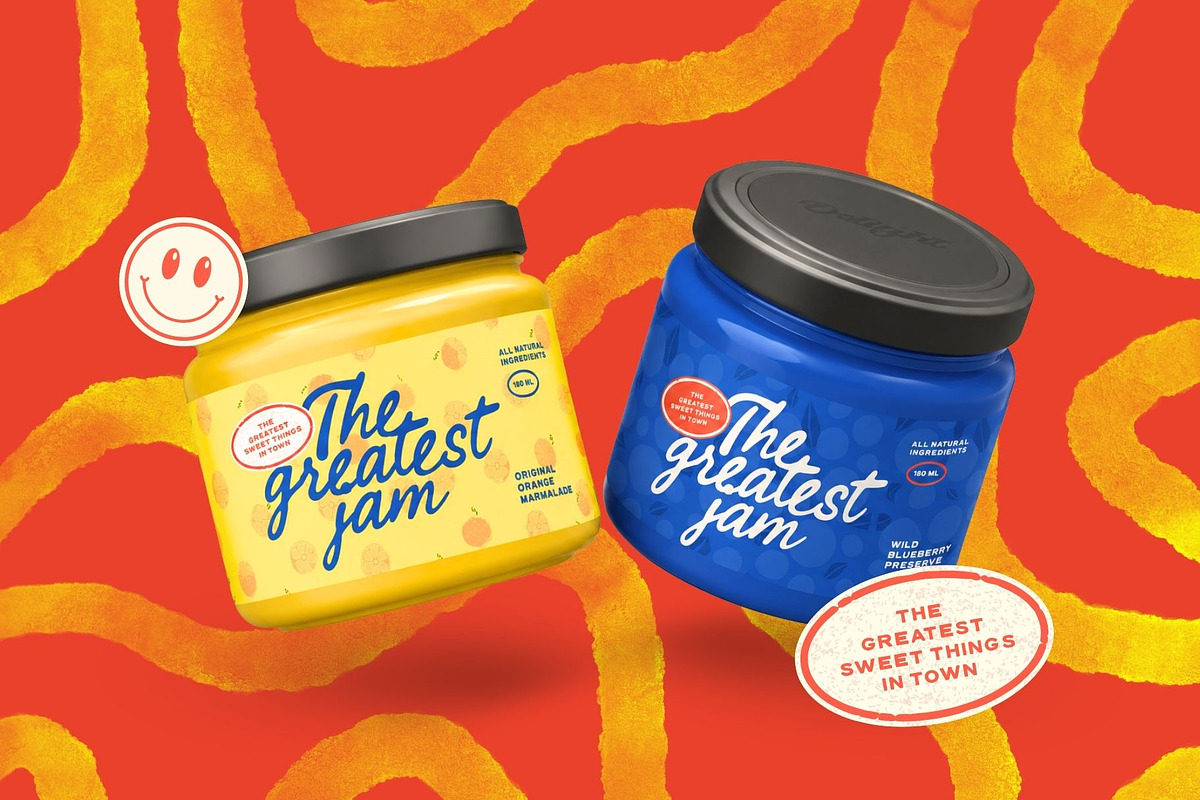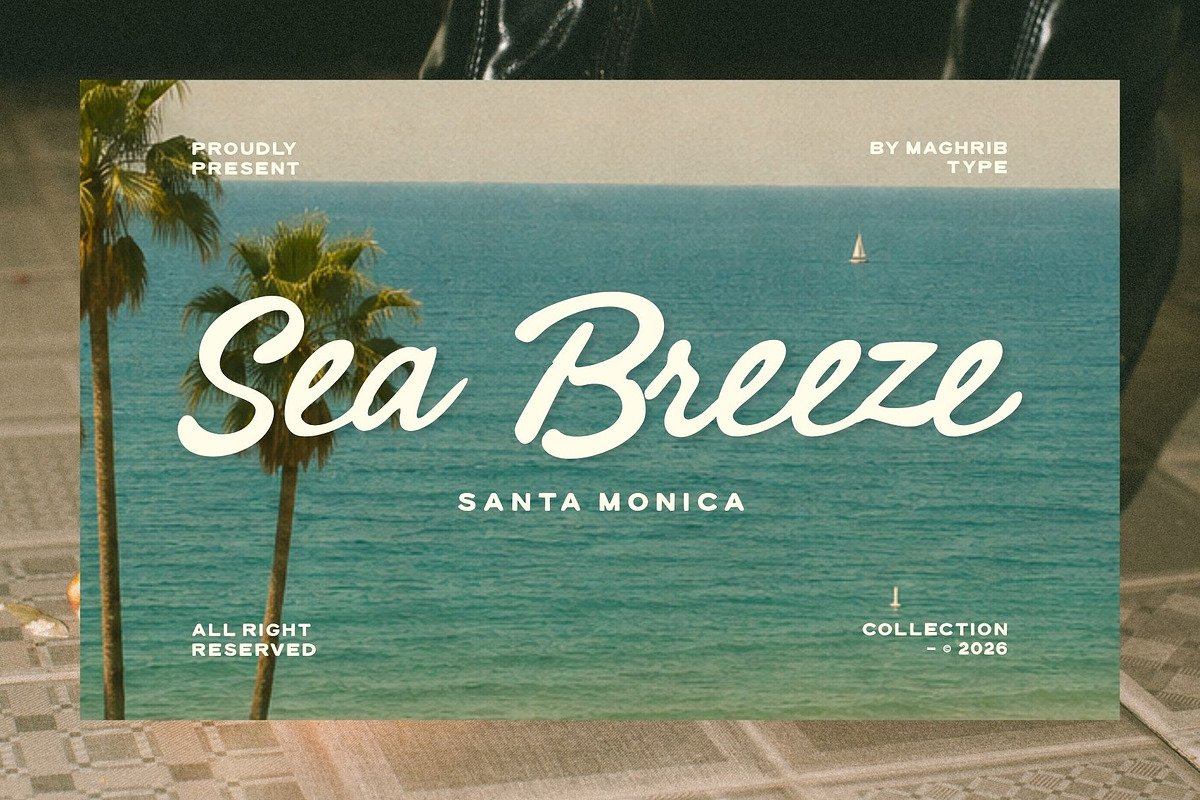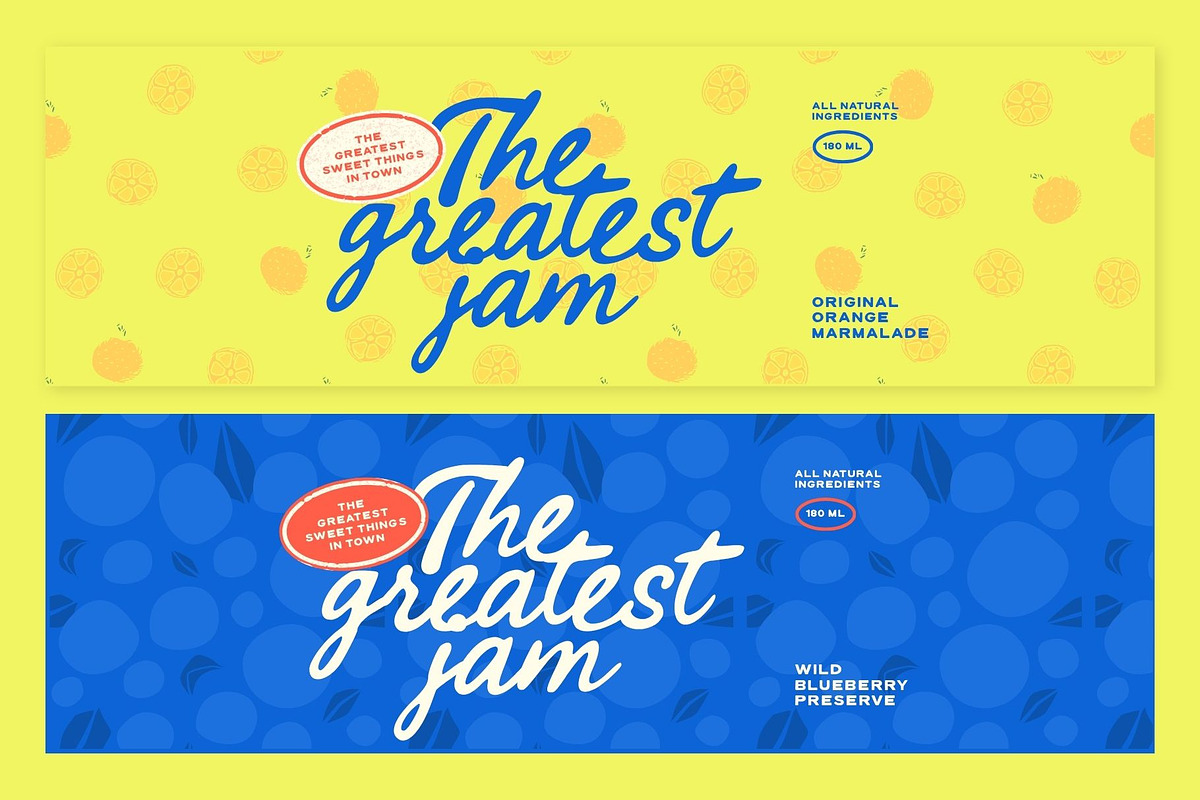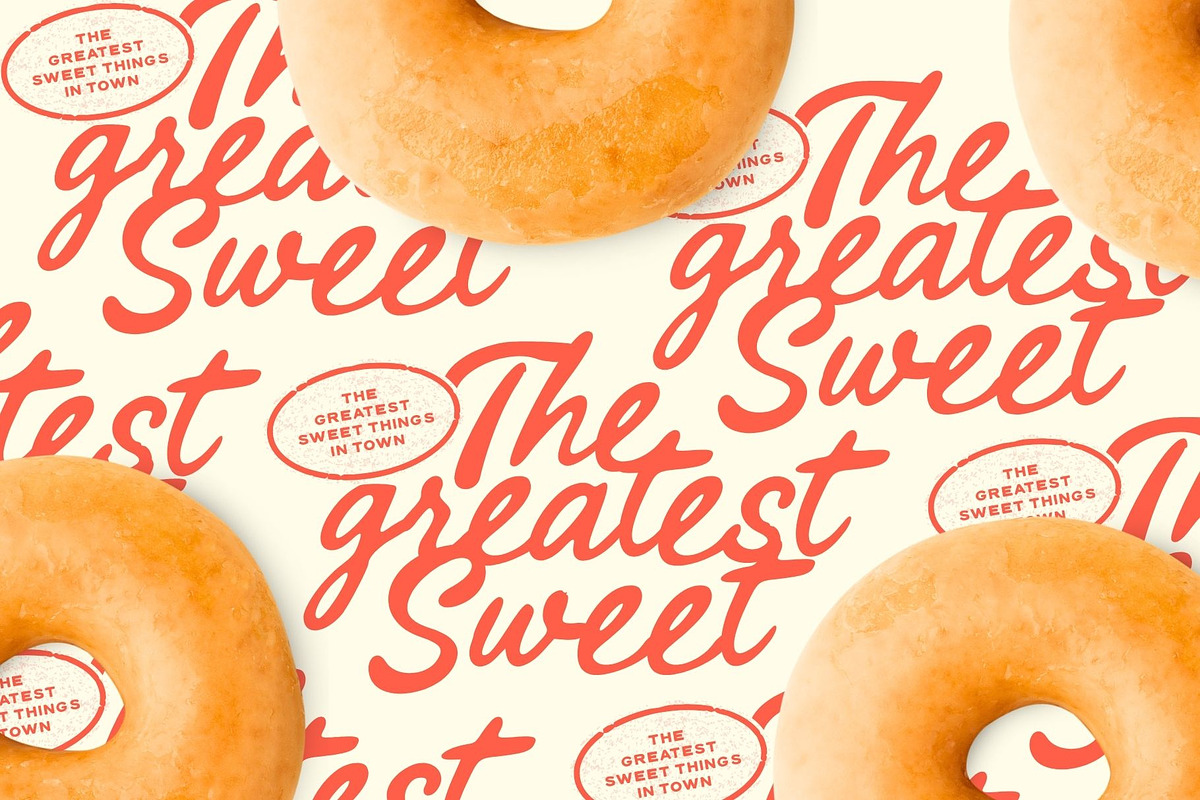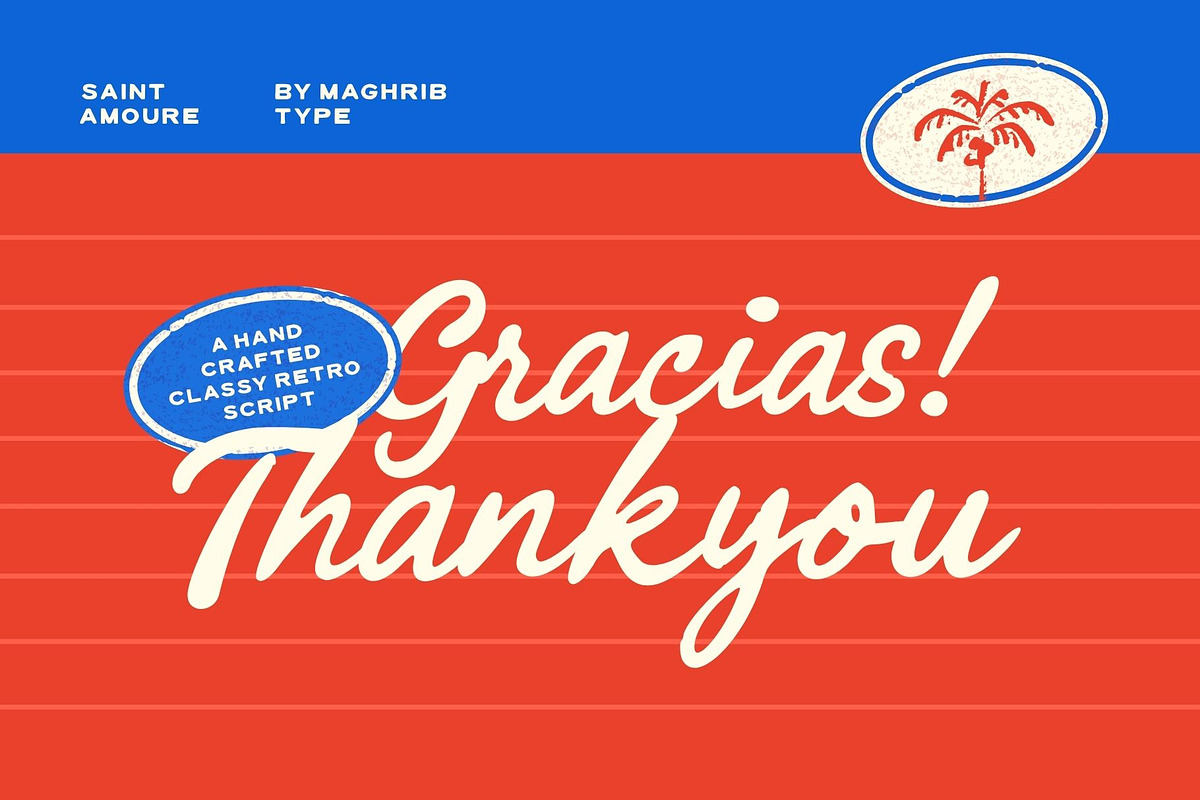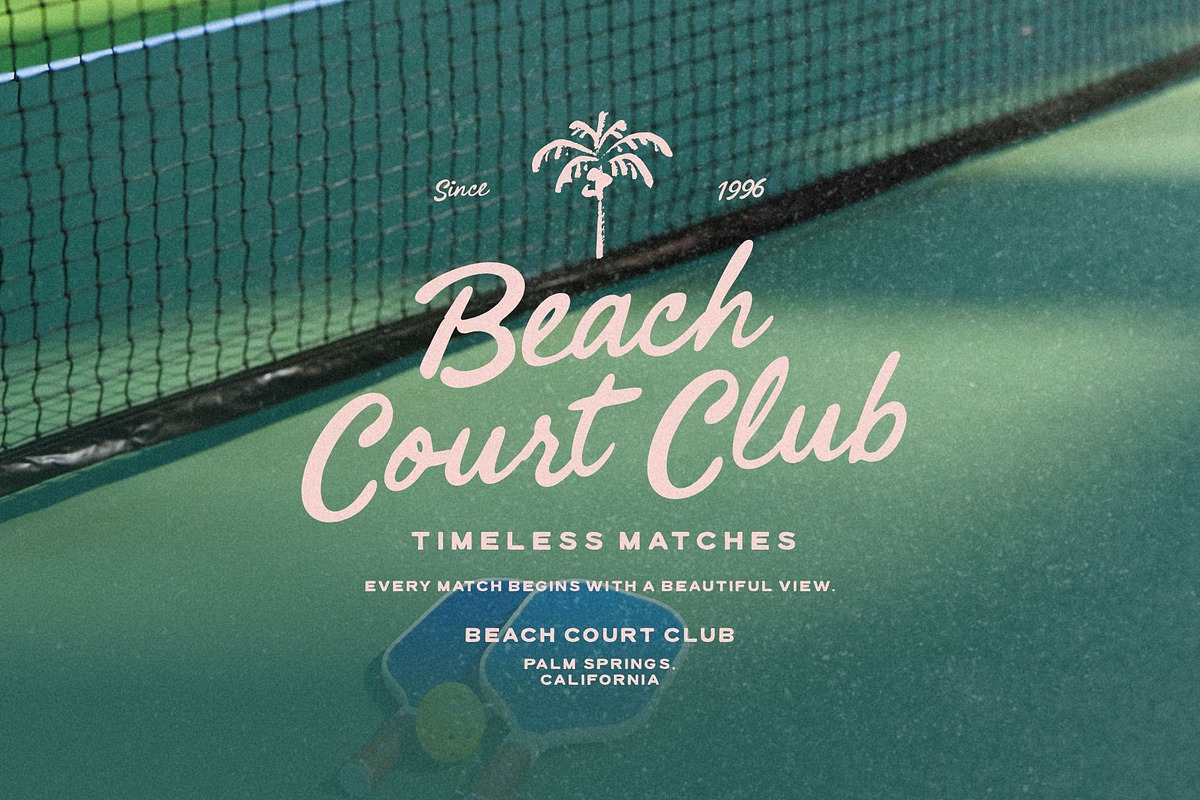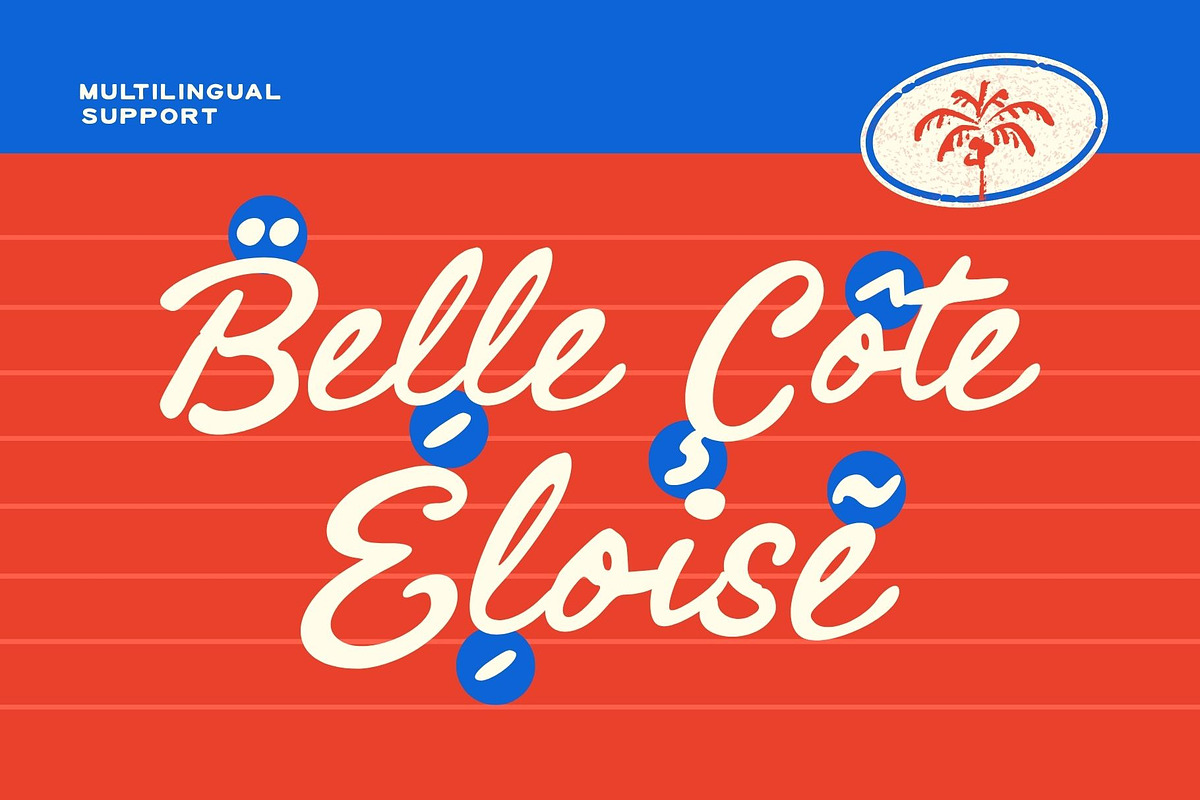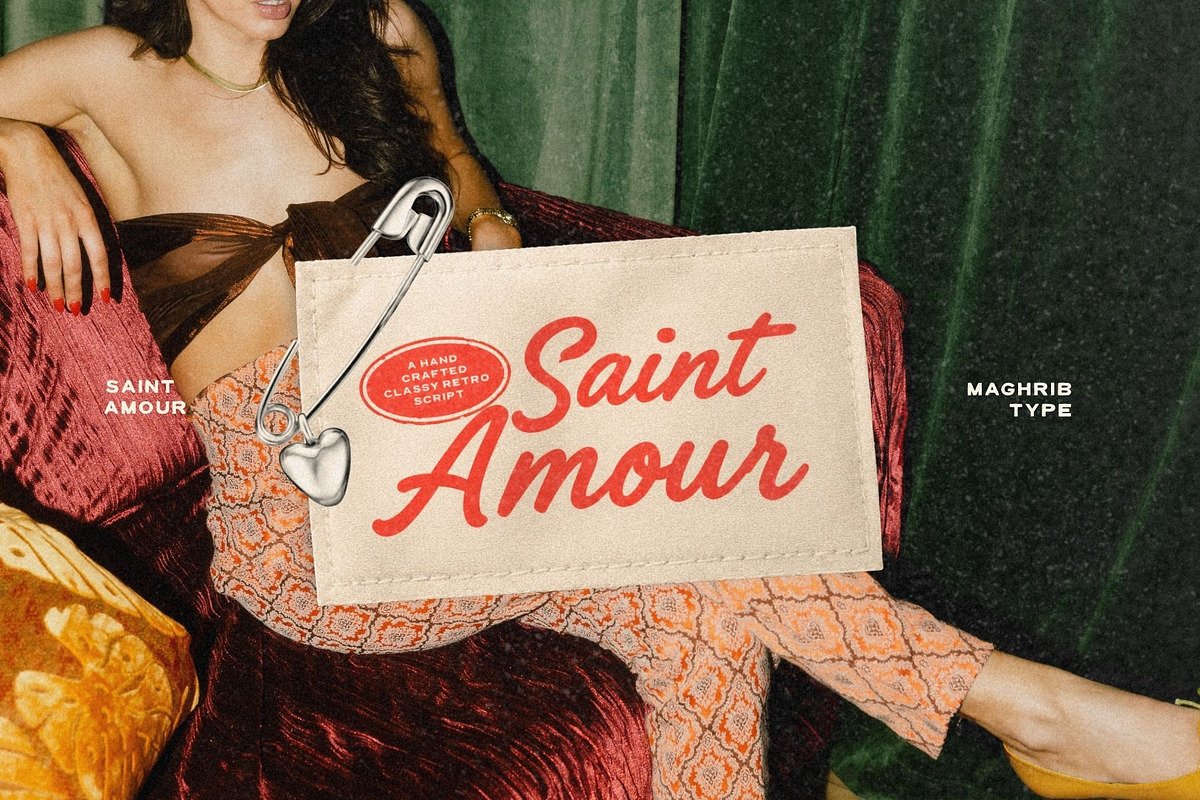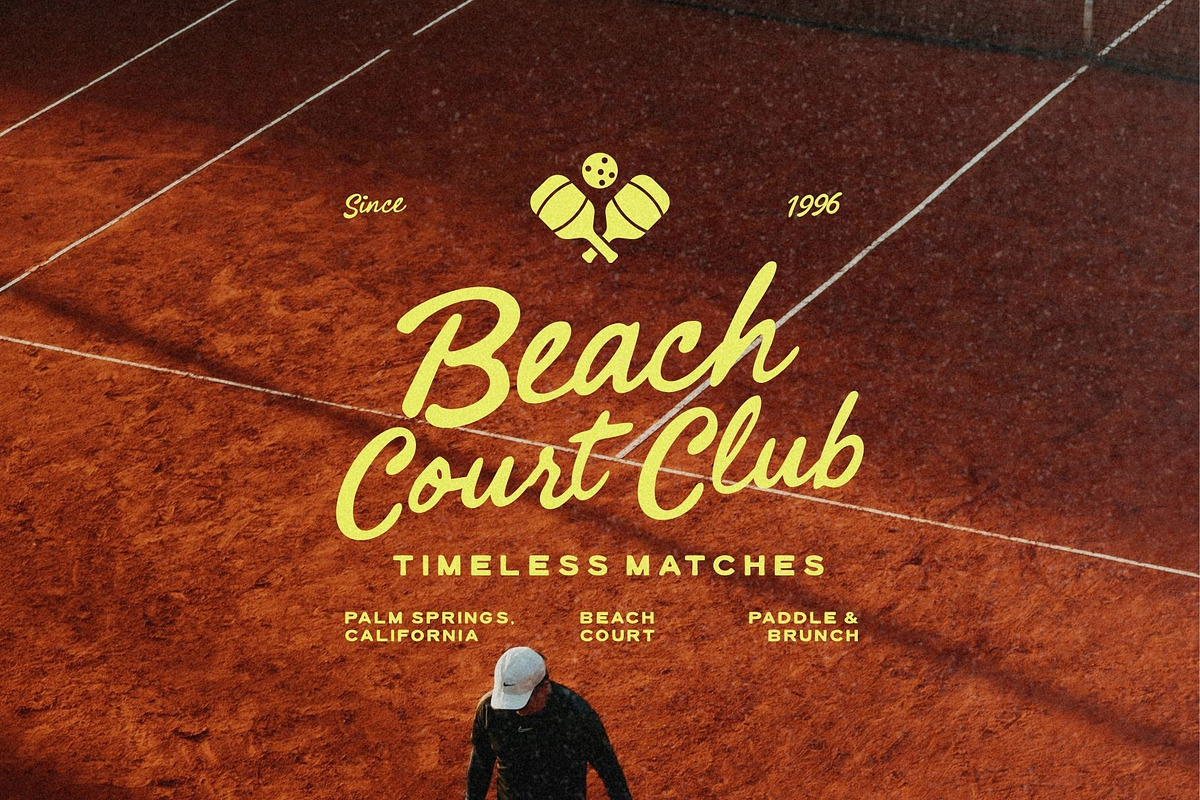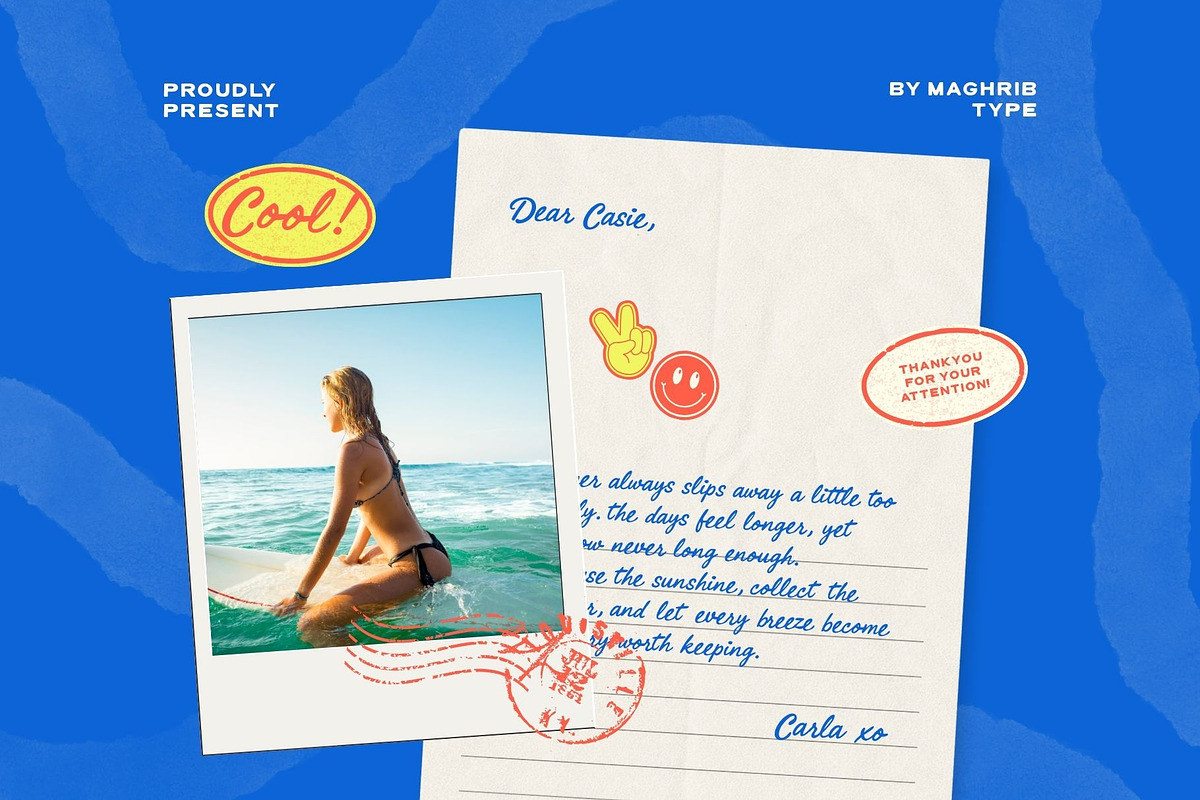
Saint Amour Duo Font
Saint Amour Duo is a handcrafted retro font duo that blends an expressive vintage script with a clean geometric sans serif. Inspired by nostalgic French café signage, classic advertising, and timeless mid-century lettering, this duo captures warmth, elegance, and personality in every character.
The script features smooth flowing connections, rounded terminals, and carefully balanced strokes that create an authentic handwritten feel. Paired with a bold yet minimal sans serif, Saint Amour gives designers the flexibility to build beautiful typography with effortless hierarchy and contrast.
Whether you're creating branding, packaging, editorial layouts, logos, social media graphics, or lifestyle products, Saint Amour delivers a sophisticated retro aesthetic that feels both classic and contemporary.
Designed with versatility in mind, the script and sans serif complement each other perfectly, making it easy to create professional compositions for both print and digital projects.
Branding & Visual Identity
Logos & Signature Marks
Café & Restaurant Branding
Fashion Labels
Cosmetic Packaging
Wedding Stationery
Editorial Headlines
Advertising
Vintage Posters
Product Labels
Website Headers
Font Duo Includes
Saint Amour Script
Saint Amour Sans Serif
Saint Amour Duo brings together vintage charm and modern usability, making it an excellent choice for designers who appreciate handcrafted typography with timeless appeal.